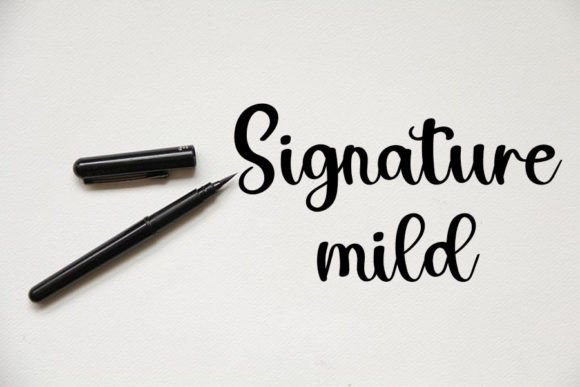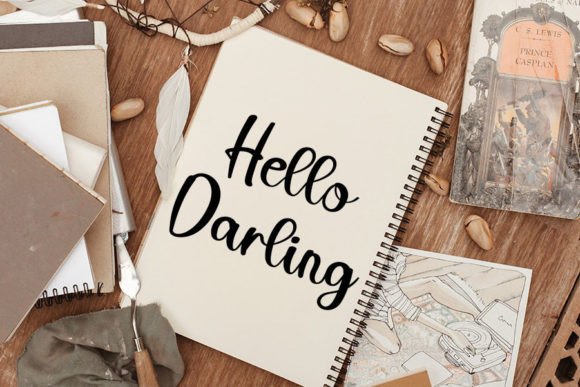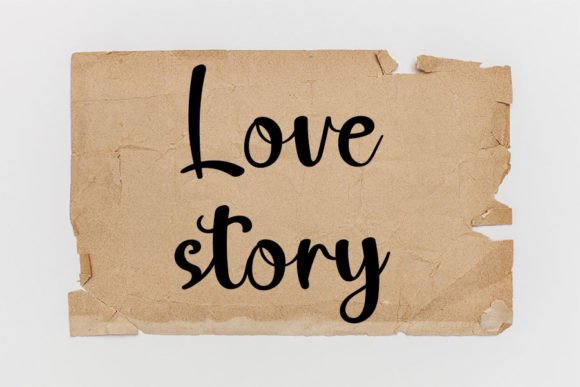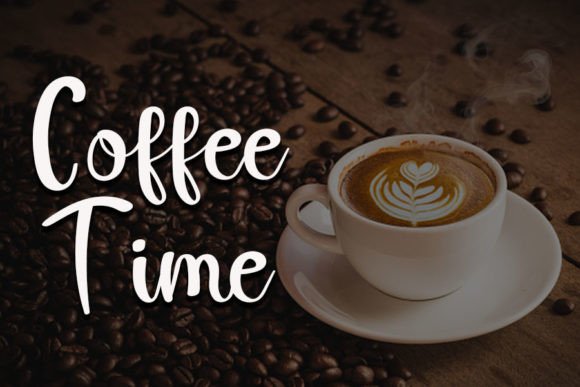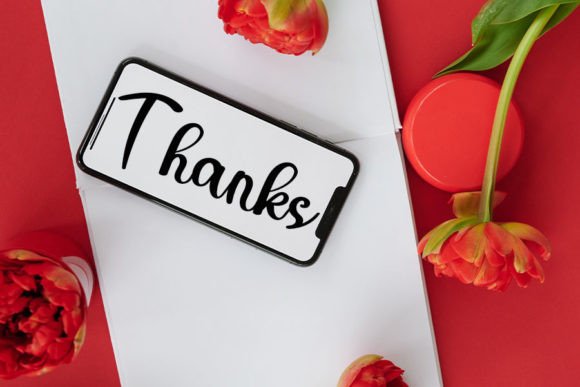
United Font
Add a magical and elegant touch to your creative projects with the United font. This handwritten script is carefully crafted to combine cleanliness with a quirky personality. It’s the perfect choice for logos, branding, social media, and crafty DIY projects.
The United font features smooth, well-balanced strokes that make your designs both beautiful and easy to read. Its unique style adds charm and character, helping your work stand out with sophistication and fun.
Whether you are designing logos, branding materials, or social media graphics, the United font fits well for a variety of creative needs. Its versatility makes it adaptable to many platforms and project types.
Despite its elegant and magical design, the United font remains highly readable at various sizes. Whether used for bold titles or subtle decorative elements, it enhances your projects with style and grace.
Using this font will help your creative work capture attention with a memorable and enchanting look. If you want to add a sophisticated yet playful vibe to your designs, the United font is an excellent choice.
In summary, the United font suits many creative projects. From logos and branding to social media posts and DIY crafts, it adds elegance and whimsy. Download it today and create stunning, magical designs with this handwritten script.